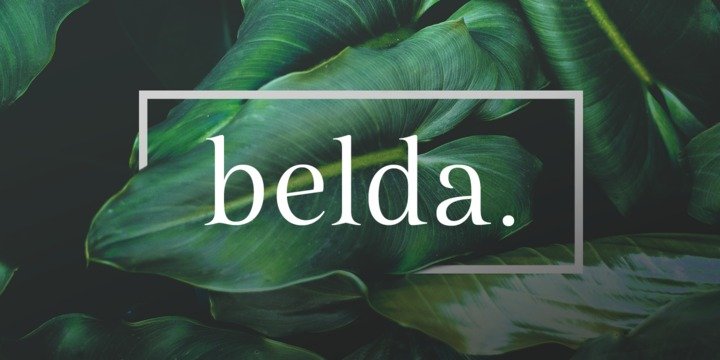
Belda Font
Introducing Belda Font Family! Belda is a serif font designed by insigne. Step into the beauty of Belda’s elegant form and discover the richness flowing from both its historic influence and its strong elements. At its heart, Belda’s graceful style embodies the classical calligraphy of the Roman capital, best known from such Roman monuments as Trajan’s Column. To lessen the possibility for error, the builders of these defining structures brushed their templates onto the marble before taking their first cuts from the expensive stone…